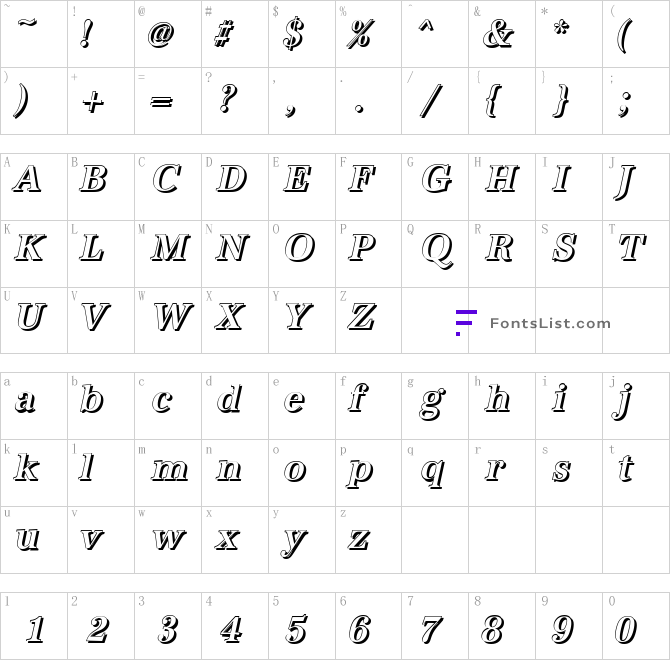
AntiquaSh-Cd-Medium-Italic.ttf is a very beautiful artistic font, AntiquaSh-Cd-Medium-Italic.ttf is widely used in the design and printing of various books and pictures,AntiquaSh-Cd-Medium-Italic.ttf has a strong visual impact,AntiquaSh-Cd-Medium-Italic.ttf is a commonly used font in newspapers, magazines and books, and is used in posters, e-commerce Poster design, store design, logo design, font design and other fields.AntiquaSh-Cd-Medium-Italic.